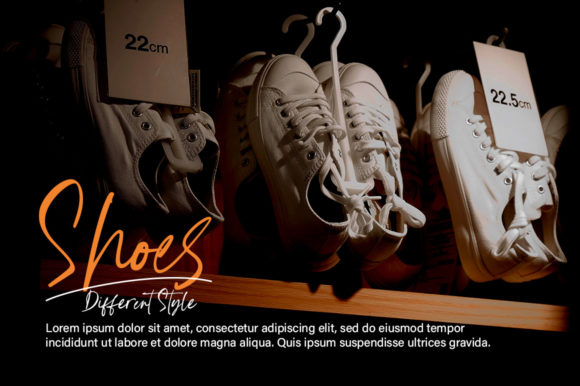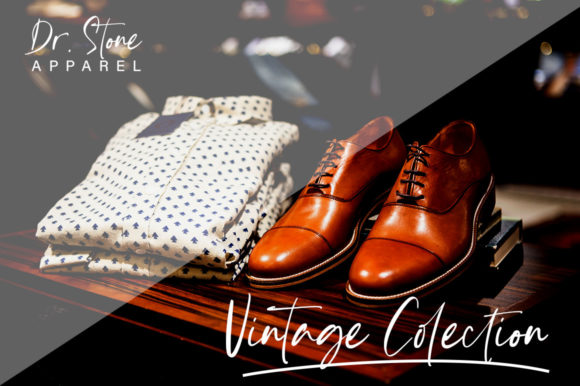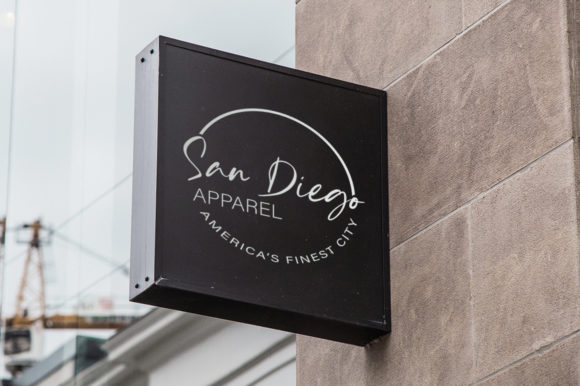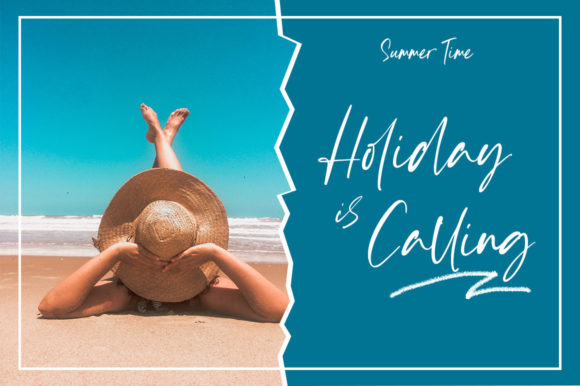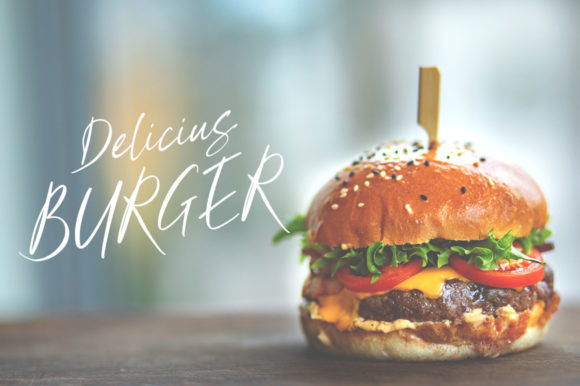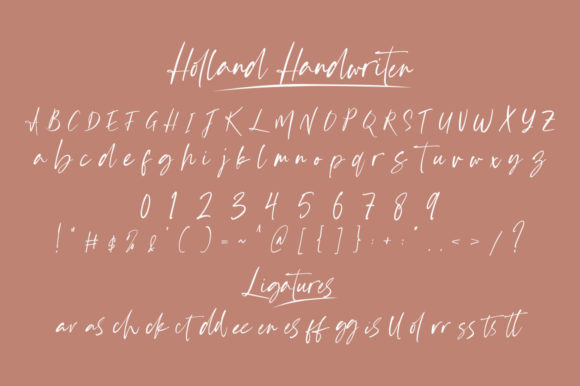
Holland Font
About Holland Font
Introducing “Holland,” an enchanting handwritten font that seamlessly blends versatility and romance. This script font is a versatile choice, suitable for a wide spectrum of applications, from greeting cards to headlines. “Holland” is crafted to infuse a romantic feel into your next project, ensuring a captivating and heartfelt visual experience.
The charm of “Holland” lies in its enchanting script, adding a touch of romance to various design projects. Whether you’re working on expressive greeting cards or eye-catching headlines, this font is designed to evoke a romantic and captivating ambiance.
One standout feature of “Holland” is its PUA encoding, providing effortless access to a collection of amazing glyphs and ligatures. This feature ensures a smooth and hassle-free design process, allowing you to explore the font’s full creative potential with ease.
Imagine “Holland” as the ideal font to bring a romantic and versatile touch to your projects. Whether it’s creating heartfelt greeting cards or making a statement with impactful headlines, let this font be the catalyst for infusing your designs with a touch of enchantment.
In summary, “Holland” is more than just a font; it’s an enchanting script designed to add romance and versatility to a wide range of applications. With its PUA encoding, this font becomes a valuable asset, granting you access to amazing glyphs and ligatures, and providing you with the tools to create visually stunning and emotionally resonant designs.